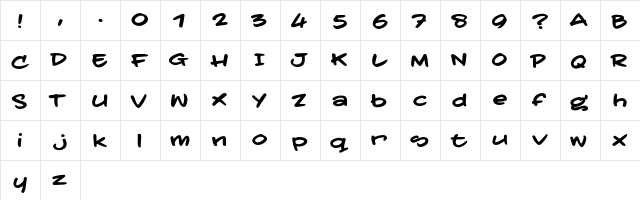
taterTodd TRIAL regular
| Foundry | JOEBOB graphics |
| Designer | JJW van der Ham |
Design Context for taterTodd TRIAL Typeface
taterTodd TRIAL is a composed and adaptable typeface that performs quietly and consistently across a wide range of design contexts.